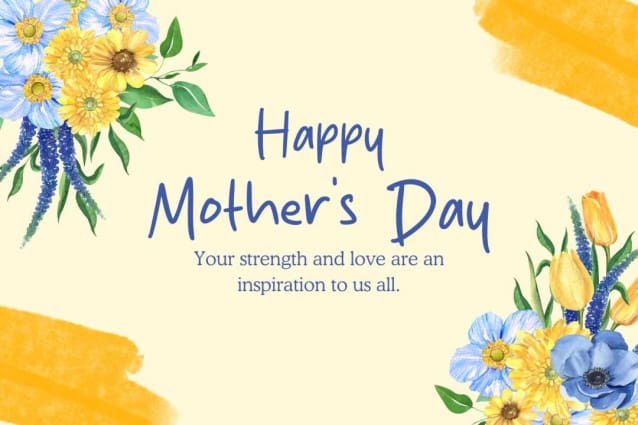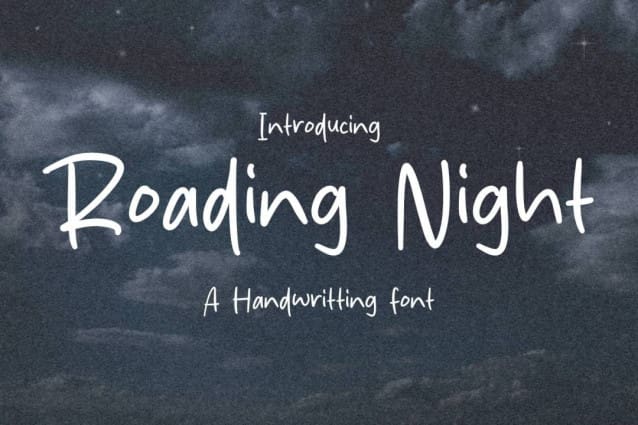
Roading Night Font
Roading Night Font is a simple and friendly handwritten font. Its natural and unique style makes it incredibly fitting to a large pool of designs. The only limit is your imagination!